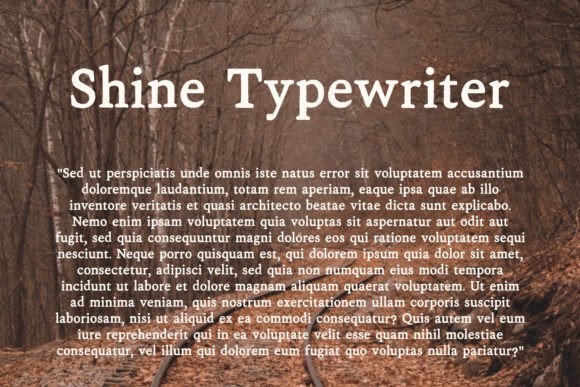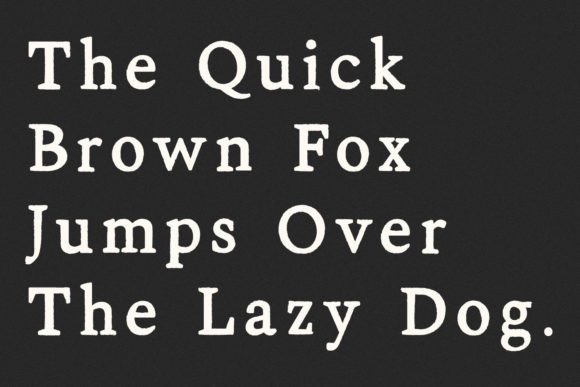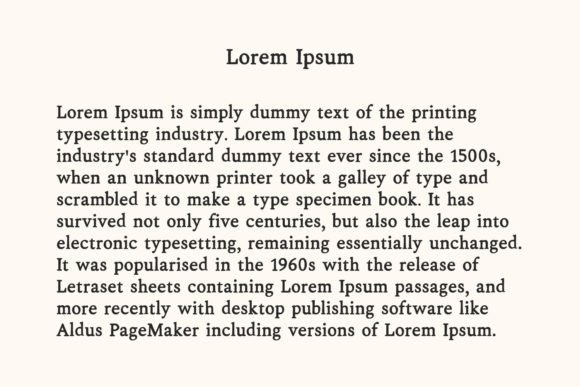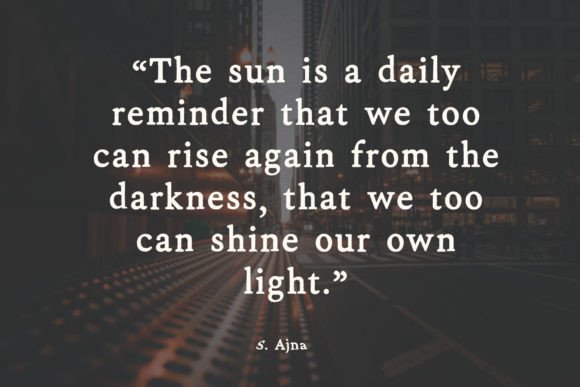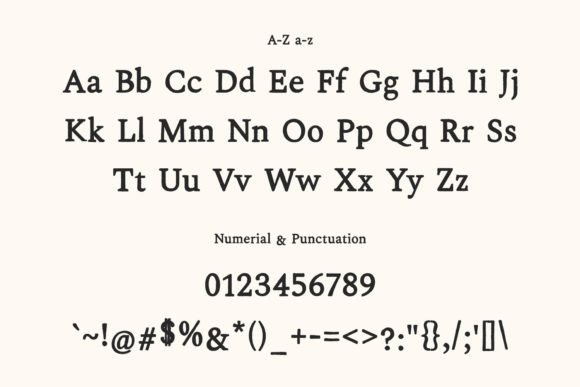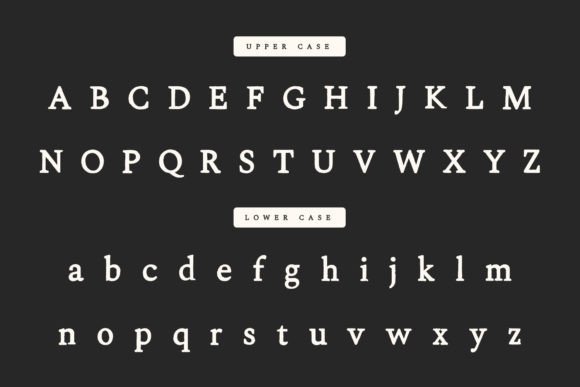
Introduction to Shine Typewriter Font
Shine Typewriter is a funky, creative and thematic handmade typewriter font that will add a retro or forensics style to your design projects.
Key Features of Shine Typewriter Font